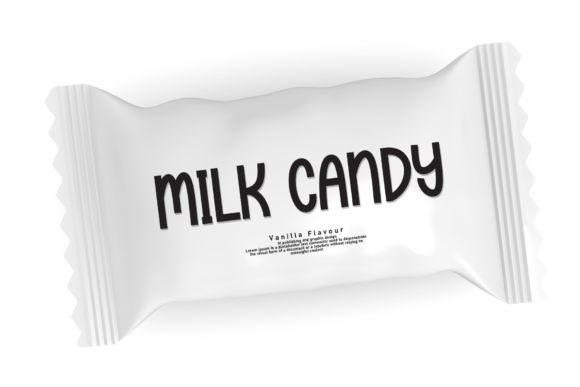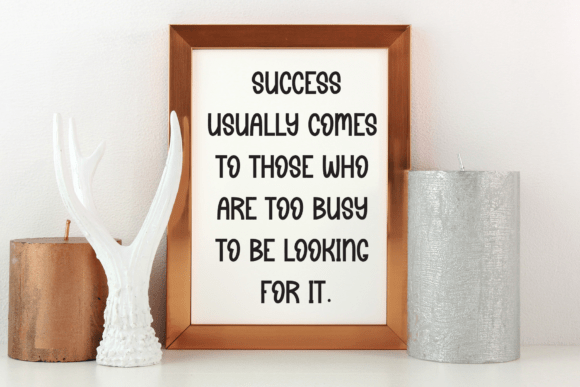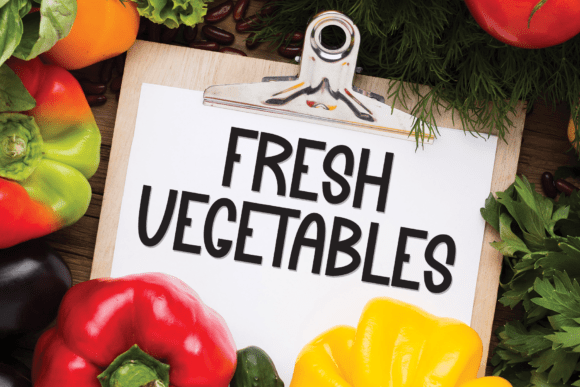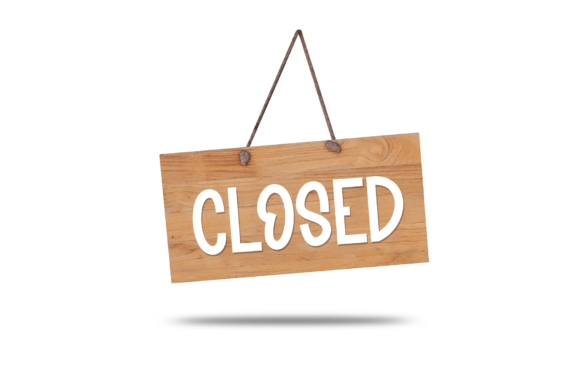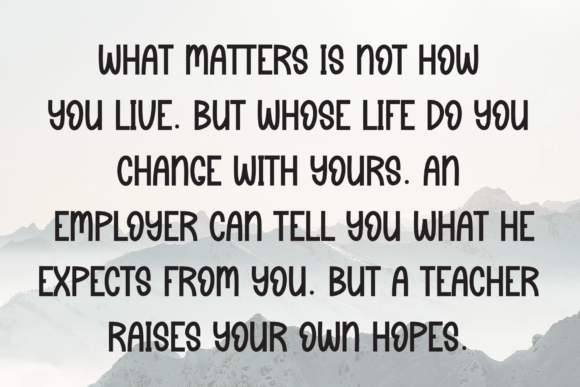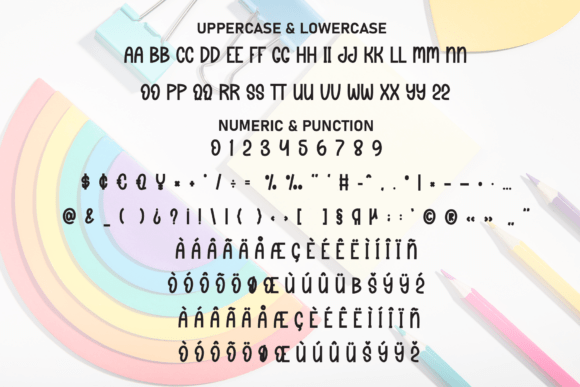
Introduction to Notes Rainbow Font Font
Fonts play a crucial role in design, and the Notes Rainbow Font font is a typeface that brings both character and versatility to any project. Whether you’re working on a branding project, a website, or a print design, the Notes Rainbow Font font offers a unique style that can elevate your work.
Introducing a delightful and approachable handwritten display font β itβs personable, charming and packed with personality.
This irresistibly fun font is absolutely perfect for sprucing up your wedding invitations, crafting heartfelt cards, or adding a playful element to any design piece that could benefit from a dash of whimsy Unleash your creativity and let your designs speak volumes with this sweet and friendly font.
Key Features of Notes Rainbow Font Font
Why Choose Notes Rainbow Font Font?
The Notes Rainbow Font font is more than just a typeface β it’s a design tool that helps you communicate your message with style and clarity. Its unique character set and versatile design make it suitable for a wide range of applications, from elegant invitations to bold headlines.
With its carefully crafted letterforms and balanced proportions, the Notes Rainbow Font font ensures readability and visual appeal across all mediums.
What makes Notes Rainbow Font font special?
The Notes Rainbow Font font stands out with its unique design, exceptional readability, and versatility across various design applications.